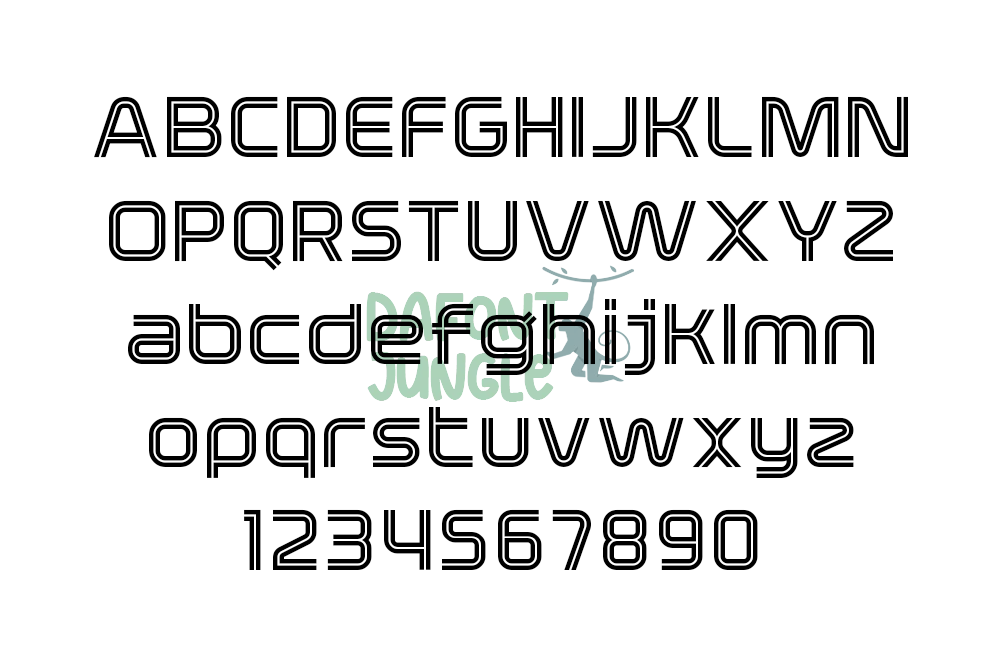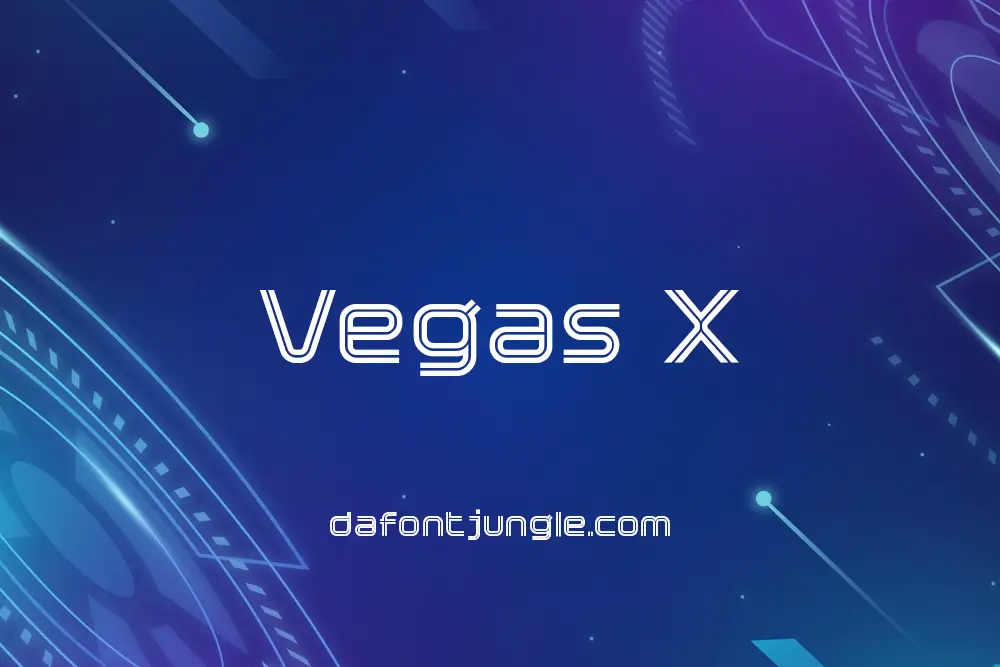
Vegas X – Futuristic Squared Display Font
Vegas-X is a futuristic squared display font inspired by science fiction, modern technology, and cinematic design. With bold geometric forms and smooth curves, it delivers a sleek and modern impression—ideal for logos, posters, icons, or digital graphics.